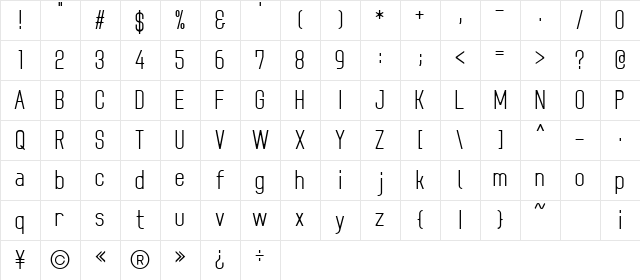
078MKSDMediumCondensed Regular
Design Context for 078MKSDMediumCondensed
078MKSDMediumCondensed is a composed and adaptable typeface that performs quietly and consistently across a wide range of design contexts. Its narrow stance lets it pack a punch even in space-constrained designs.